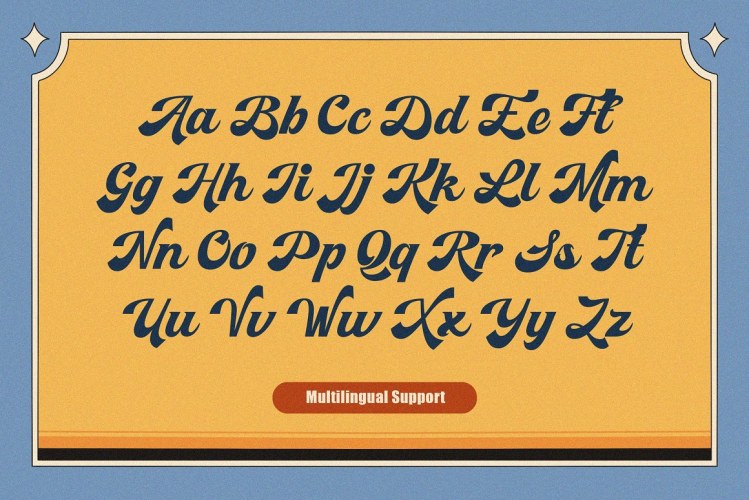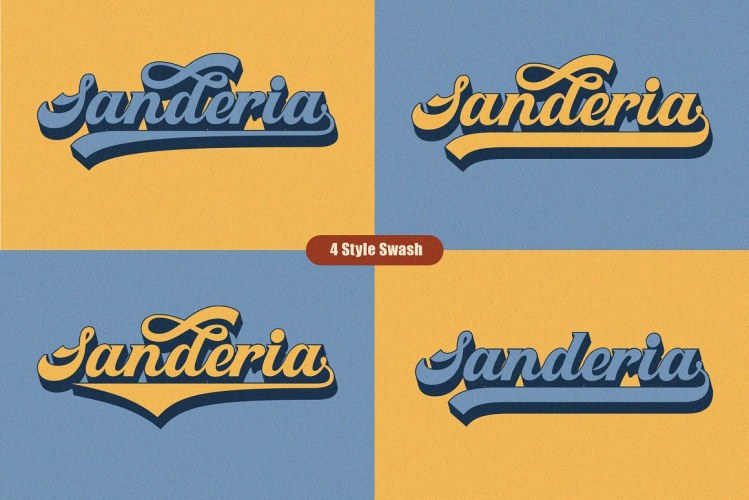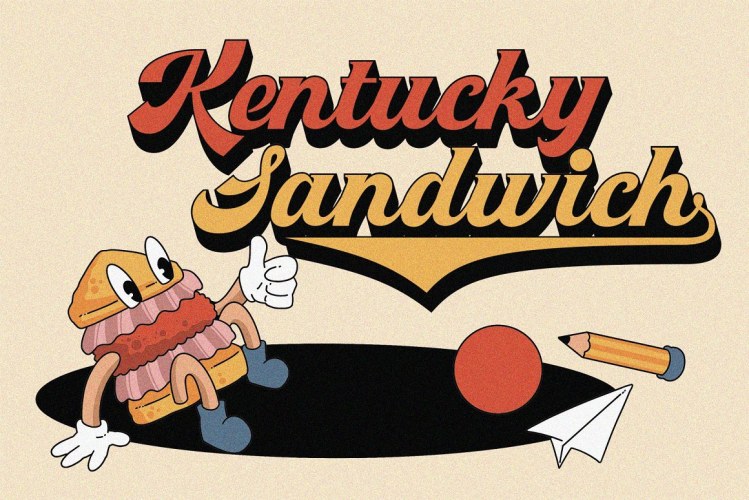
Retro Sanderia – Groovy Font
Retro Sanderia , Inspired by 70s Design Era
Retro Sanderia offers beautiful typographic harmony for a diversity of design projects, including logos & branding, social media posts, advertisements & product designs.
2 Style : Regular & shadow
Retro Sanderia – Groovy Font is a Script And Handwritten font that brings a professional and versatile look to your projects. Retro Sanderia , Inspired by 70s Design Era Retro Sanderia offers beautiful typographic harmony for a diversity of design projects, including logos & branding, social media posts, advertisements & product designs.